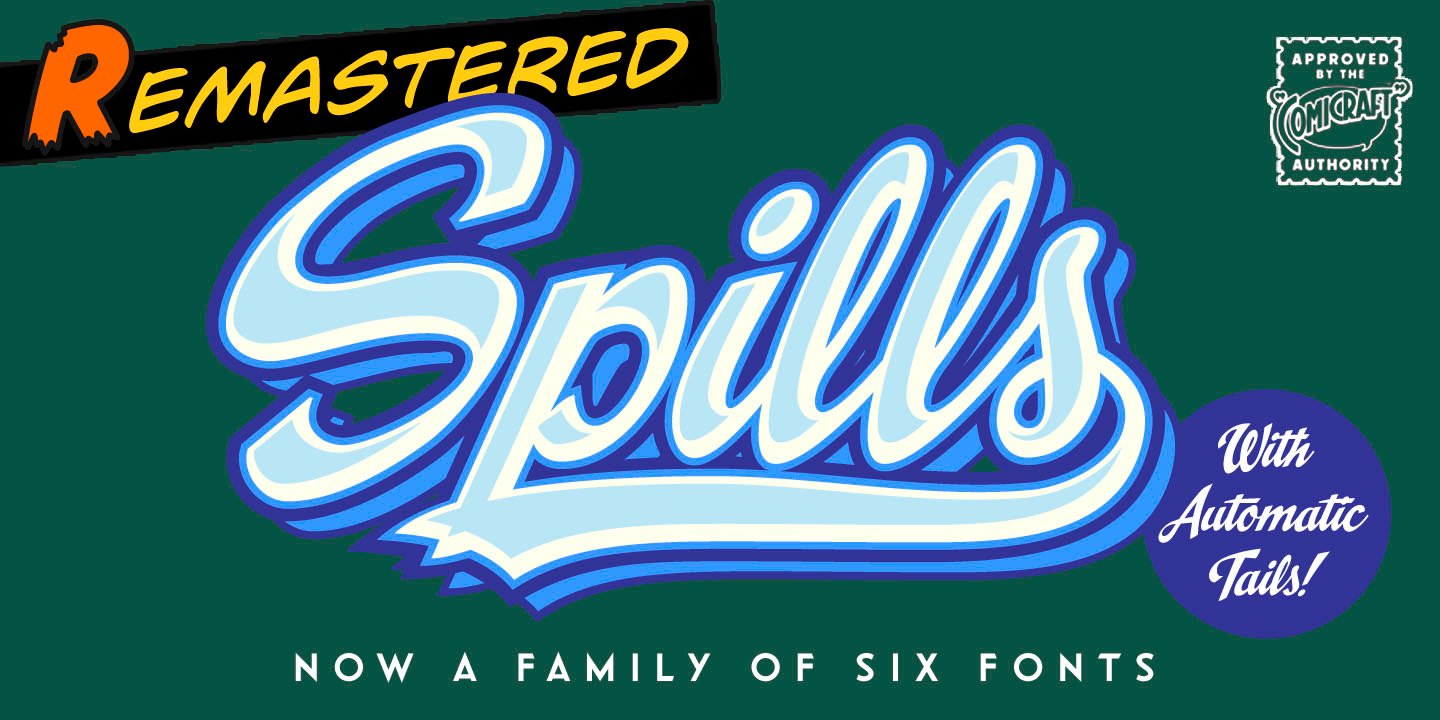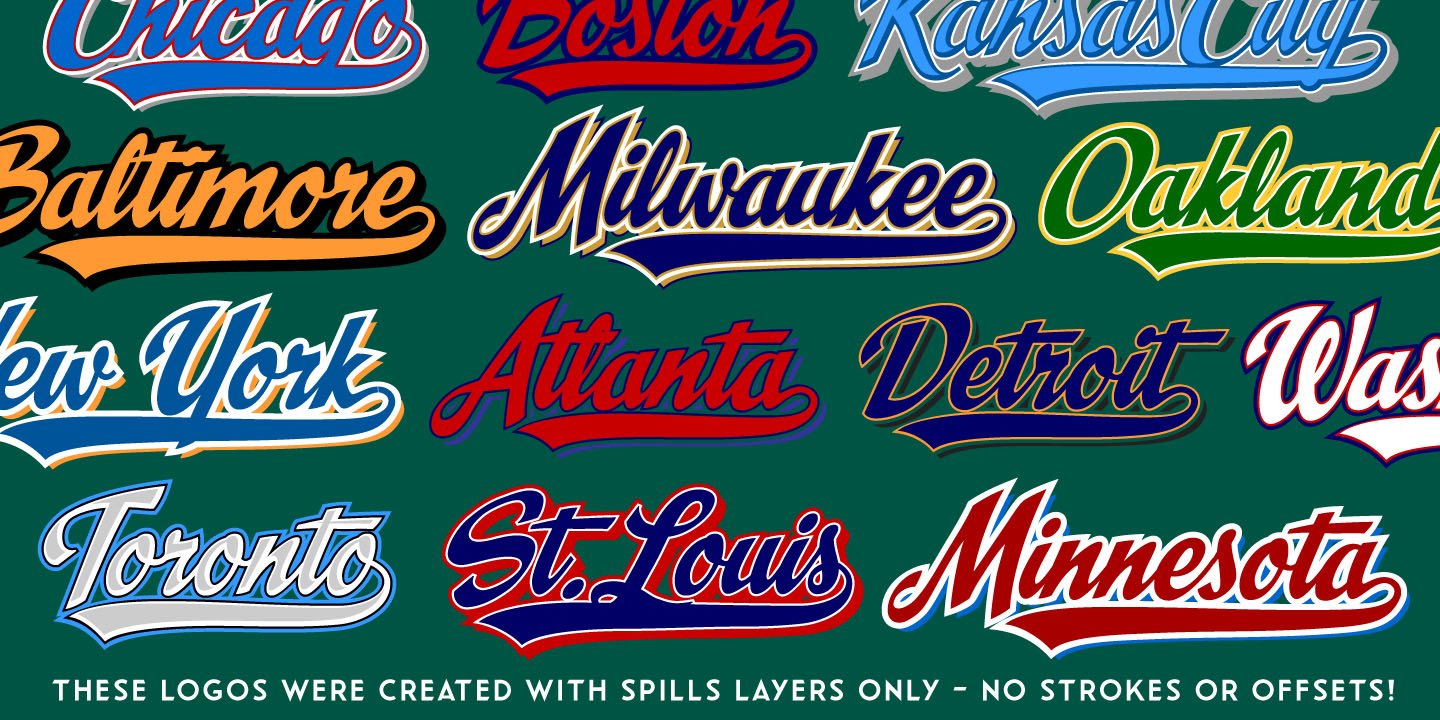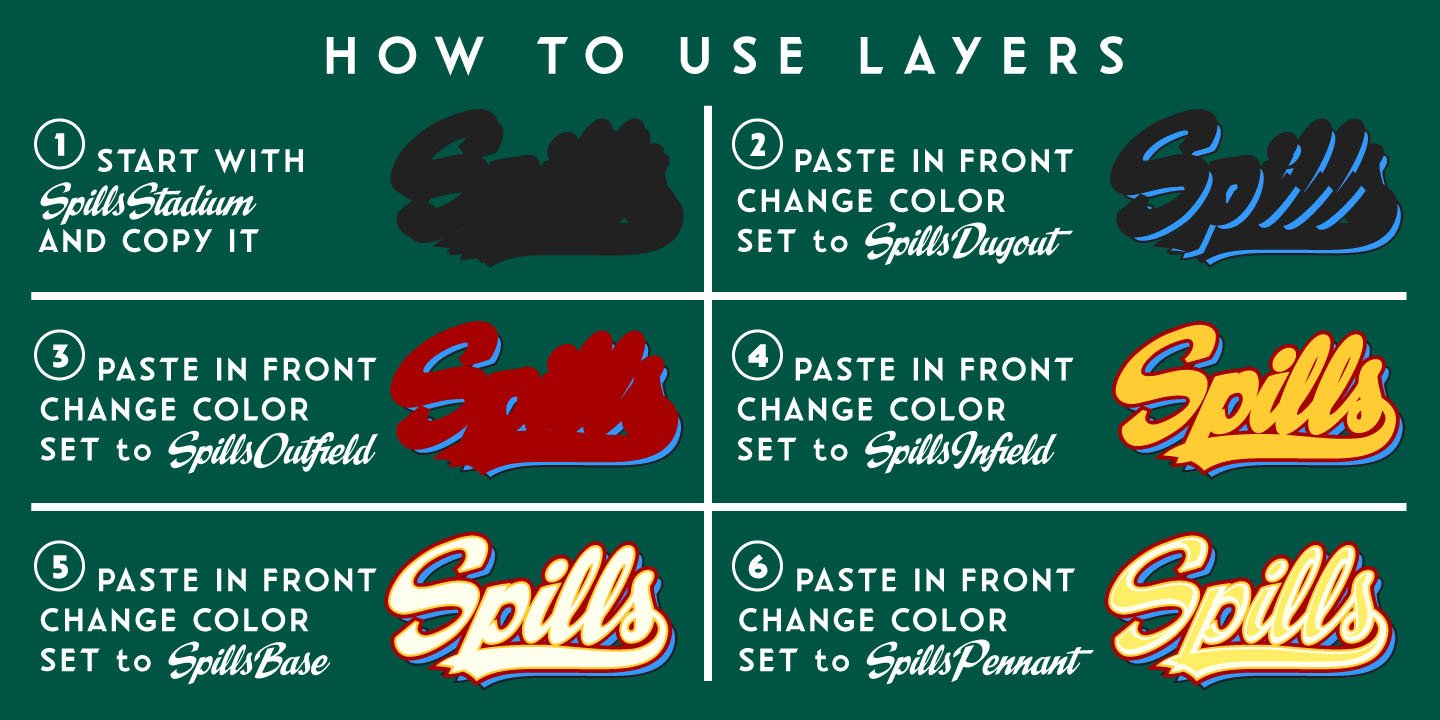
About Spills Font Family The infield dirt is raked, the outfield grass is mowed and the baselines chalked. So grab a beer, smother a stadium dog with mustard and relish, take a seat on the bleachers and get ready — that handsome devil SPILLS is back on the mound and ready for a comeback!It’s true, Manager [the person who coaches a baseball team is a ‘manager’ not a coach] John JG Roshell has coaxed the wily veteran out of retirement, and he’s returned to the field with the wisdom of extra years and the addition of five new pitches (fonts):
Stadium, Dugout, Outfield, Infield, Pennant and Base. The stadium is packed to capacity and we’re pretty sure the first time he’s at the plate, it’s gonna be strike-out city! [to continue the logic of the baseball pitching ace as font metaphor, the pitcher would hopefully prevent a home run not facilitate one.]See the families related to Spills: SpillProof . Designers: John RoshellPublisher: ComicraftFoundry: ComicraftDesign Owner: ComicraftMyFonts debut: Apr 20, 2015 Spills